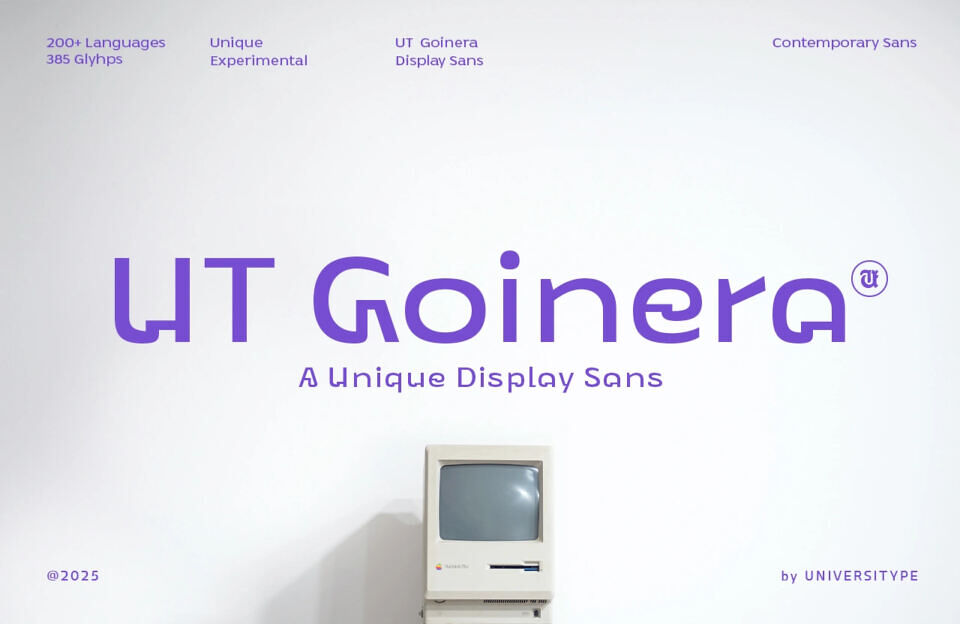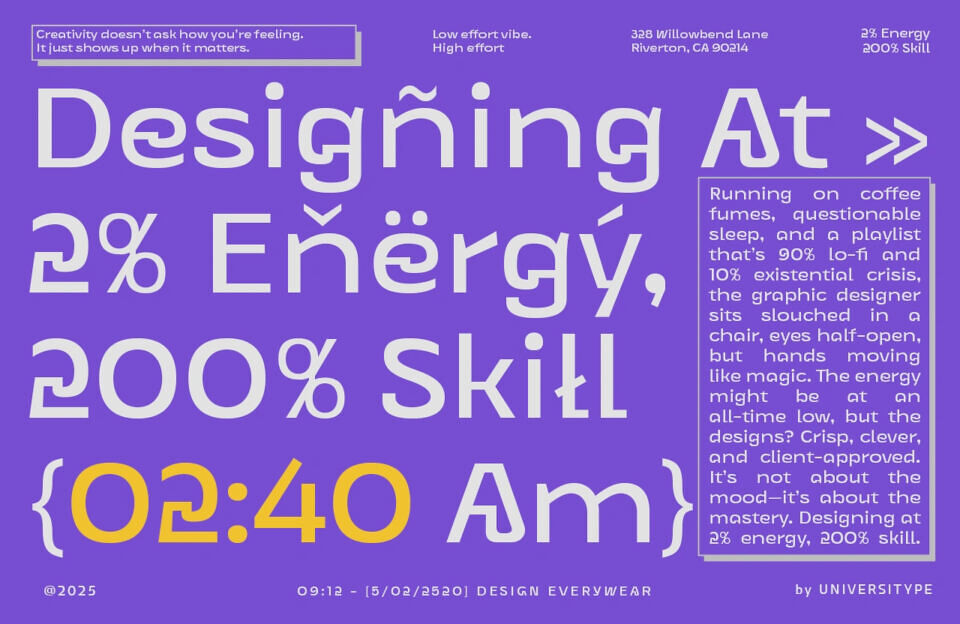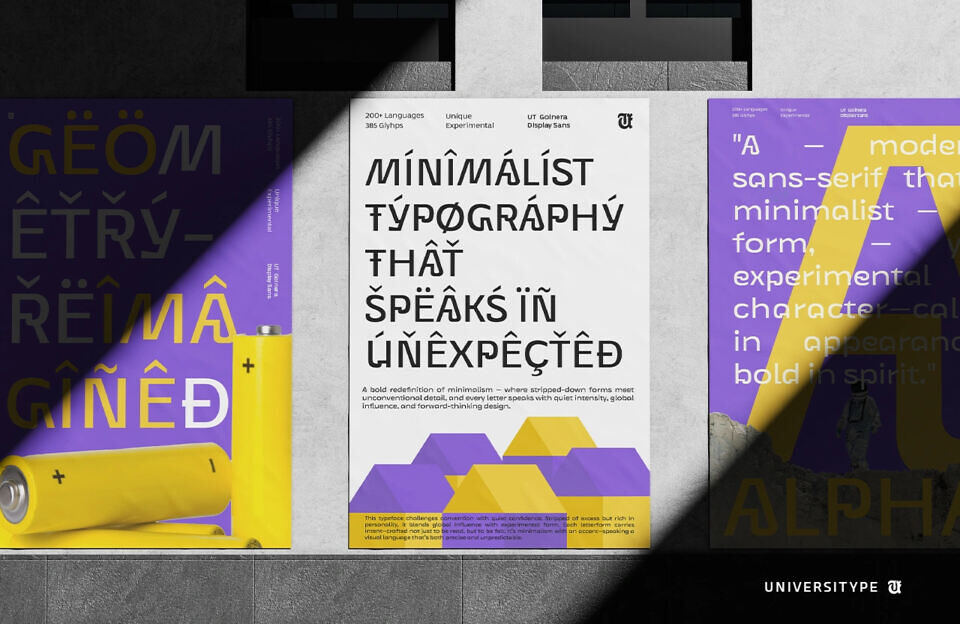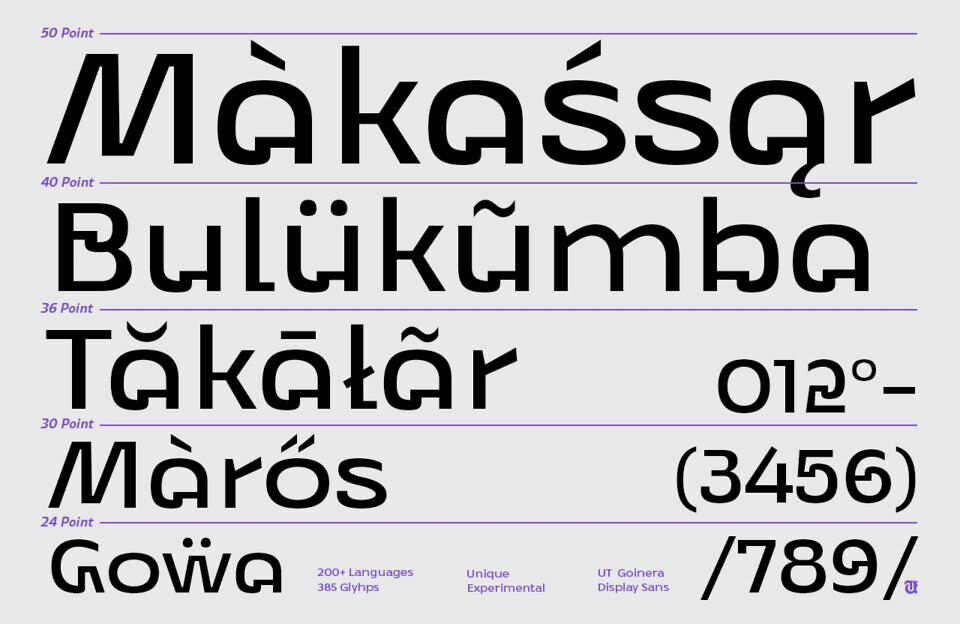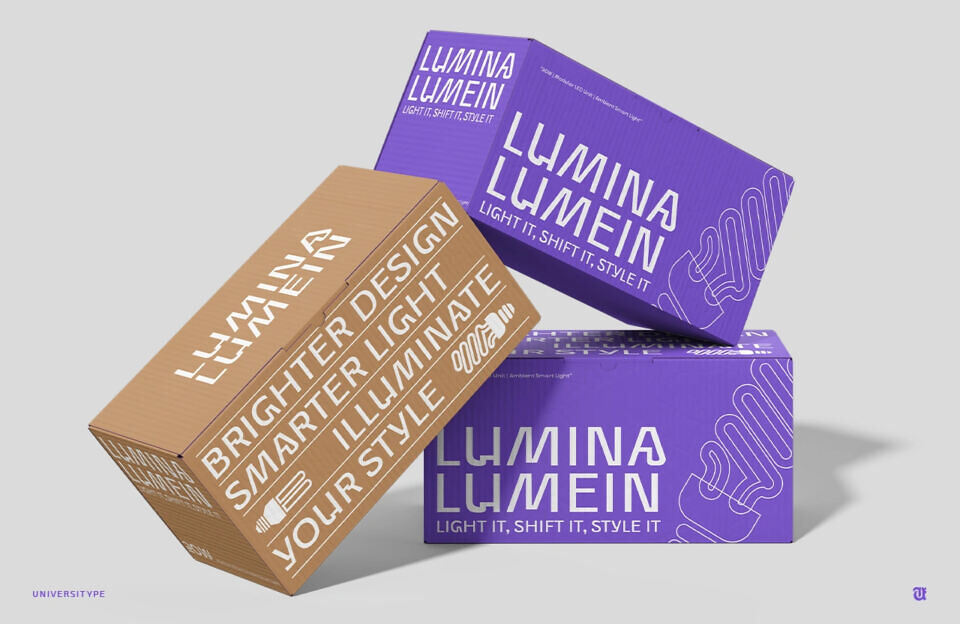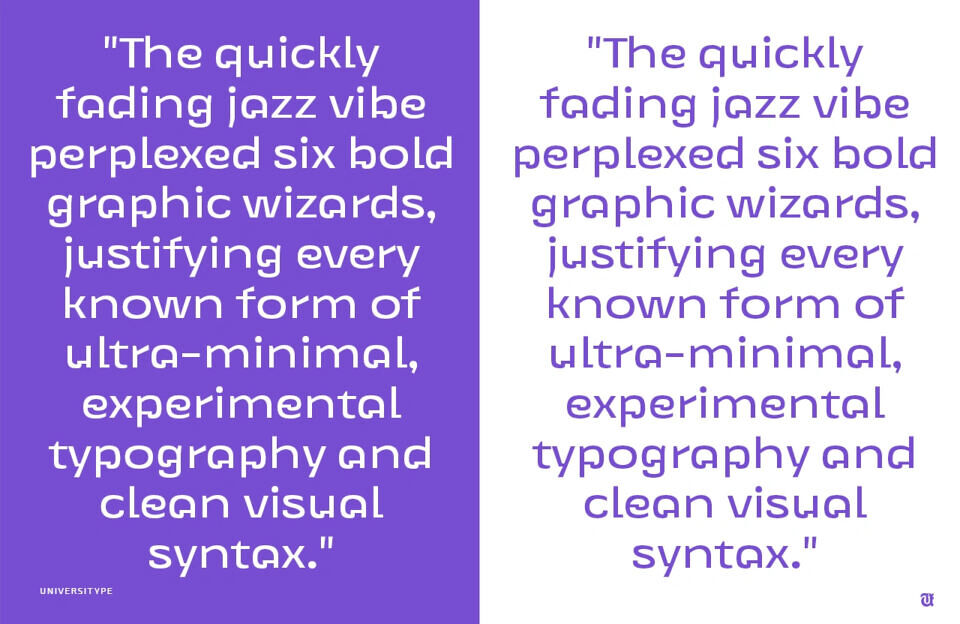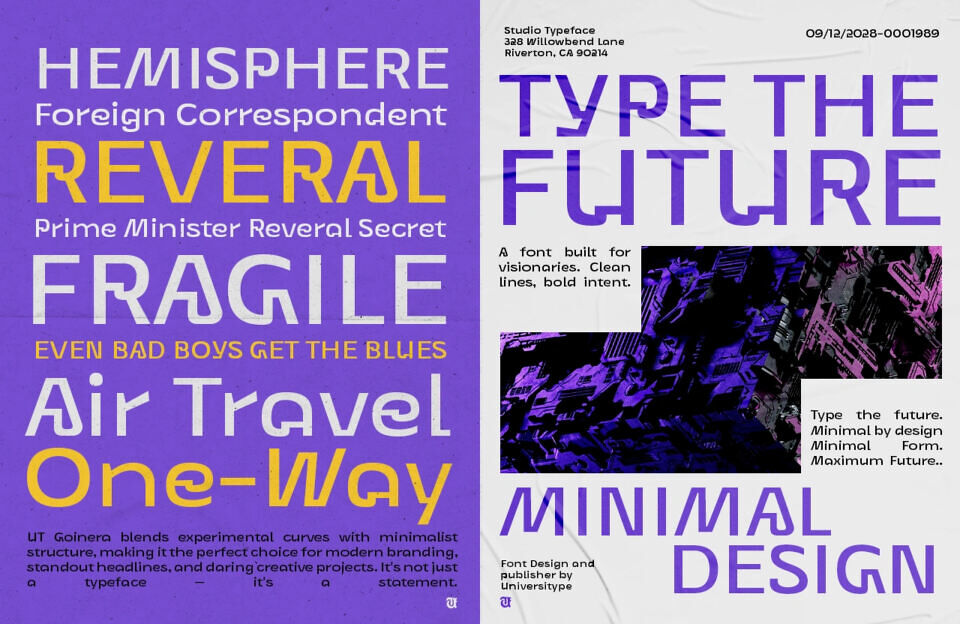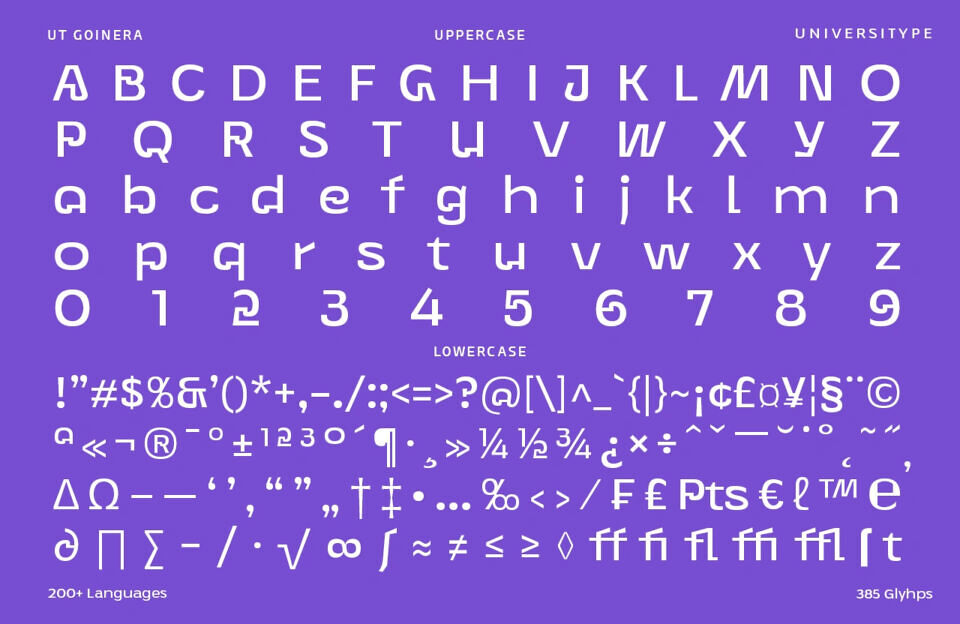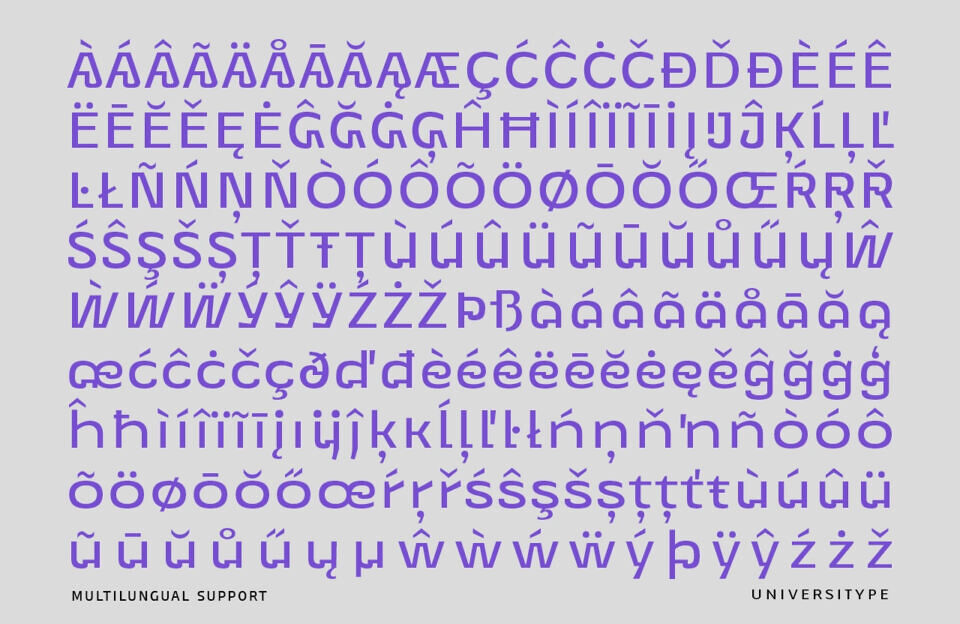
UT Goinera is a modern geometric typeface that finds its roots in the everyday, a coffee cup lid, to be exact. But don’t let the simplicity of the inspiration fool you. This font is all about clean structure with subtle quirks that bring warmth and personality to your work.